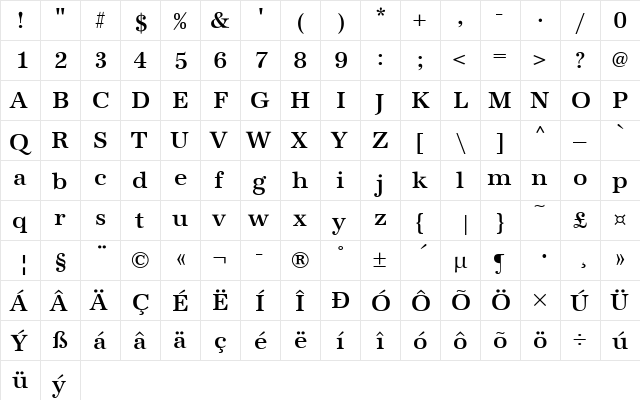
URW Antiqua T EE Regular
URW Antiqua T EE takes a measured approach to typography — its balanced proportions and neutral character make it a reliable workhorse for both digital and print work.